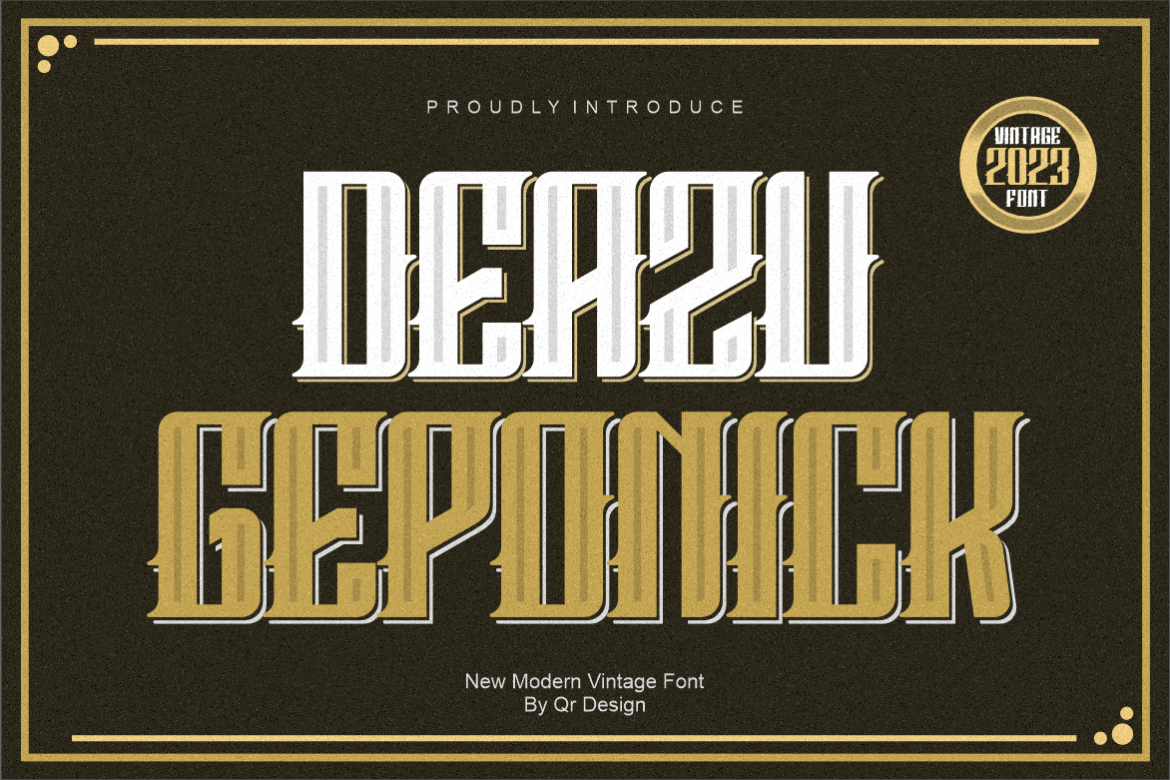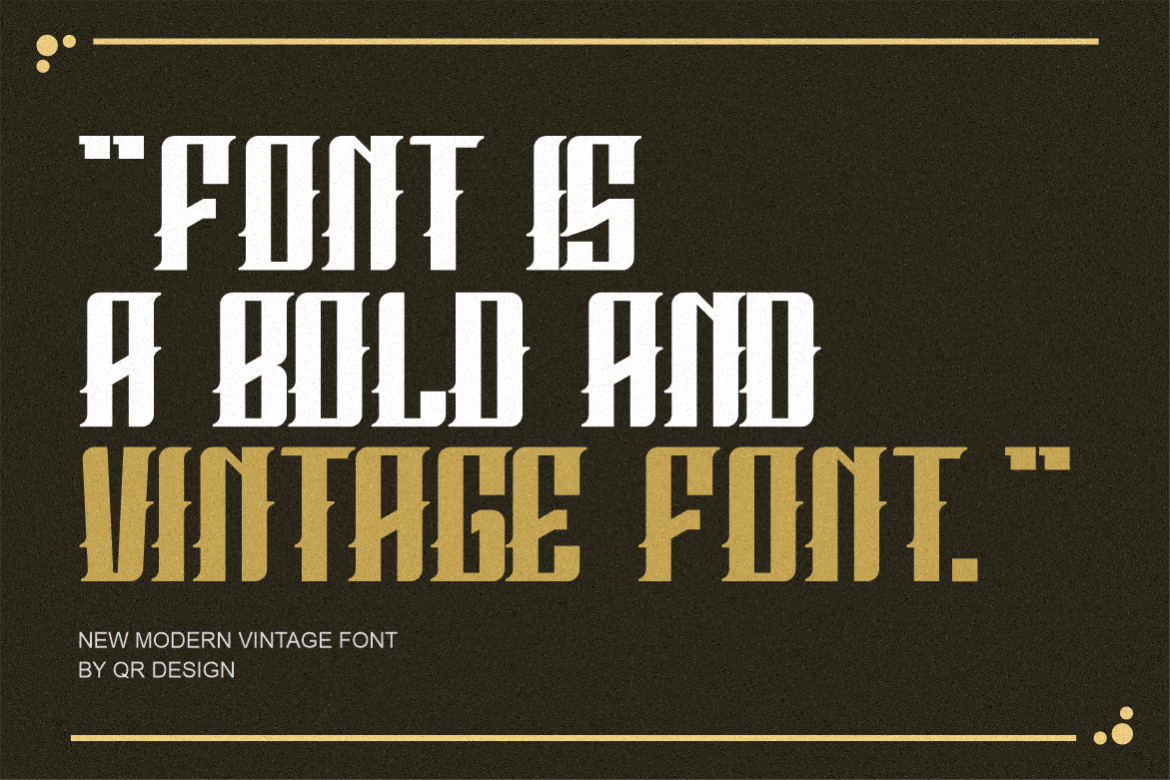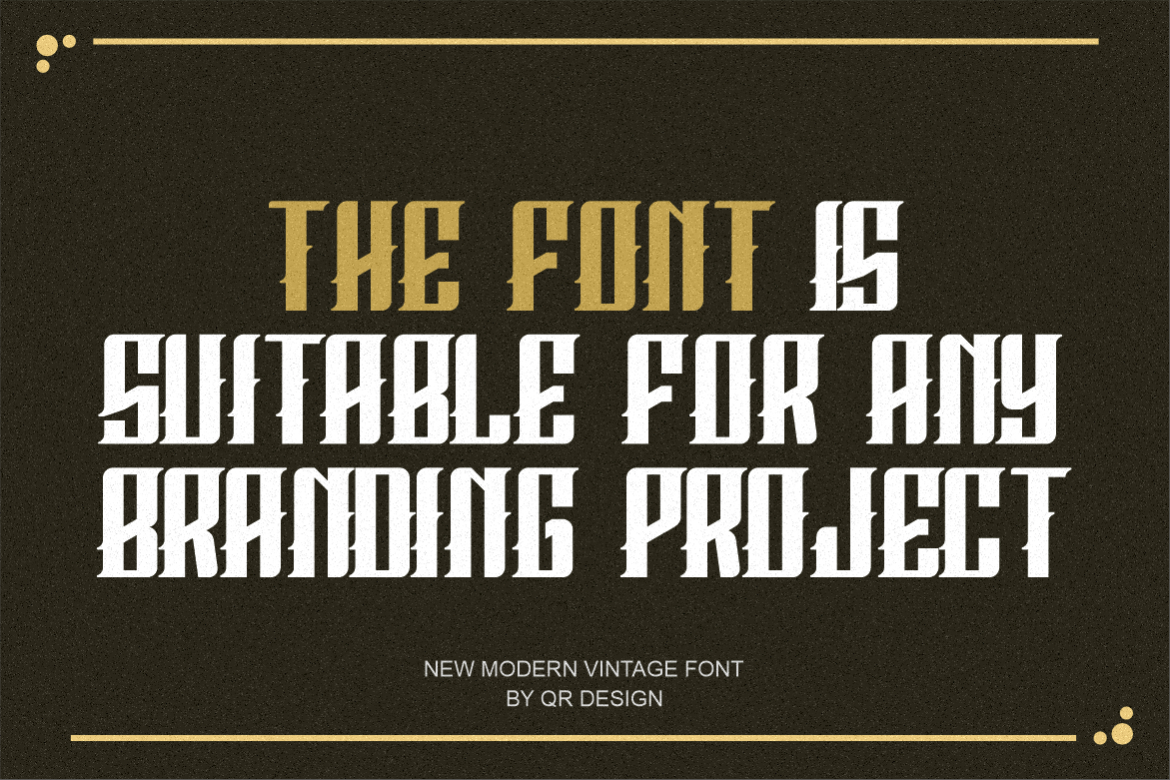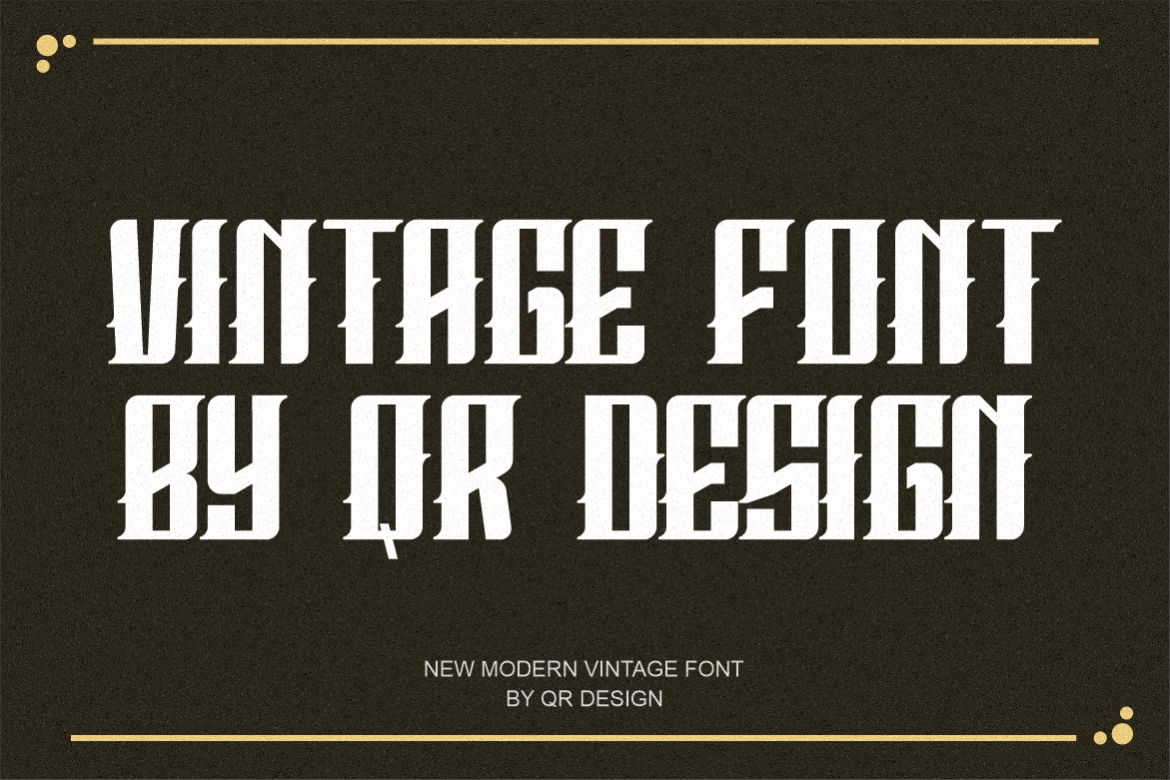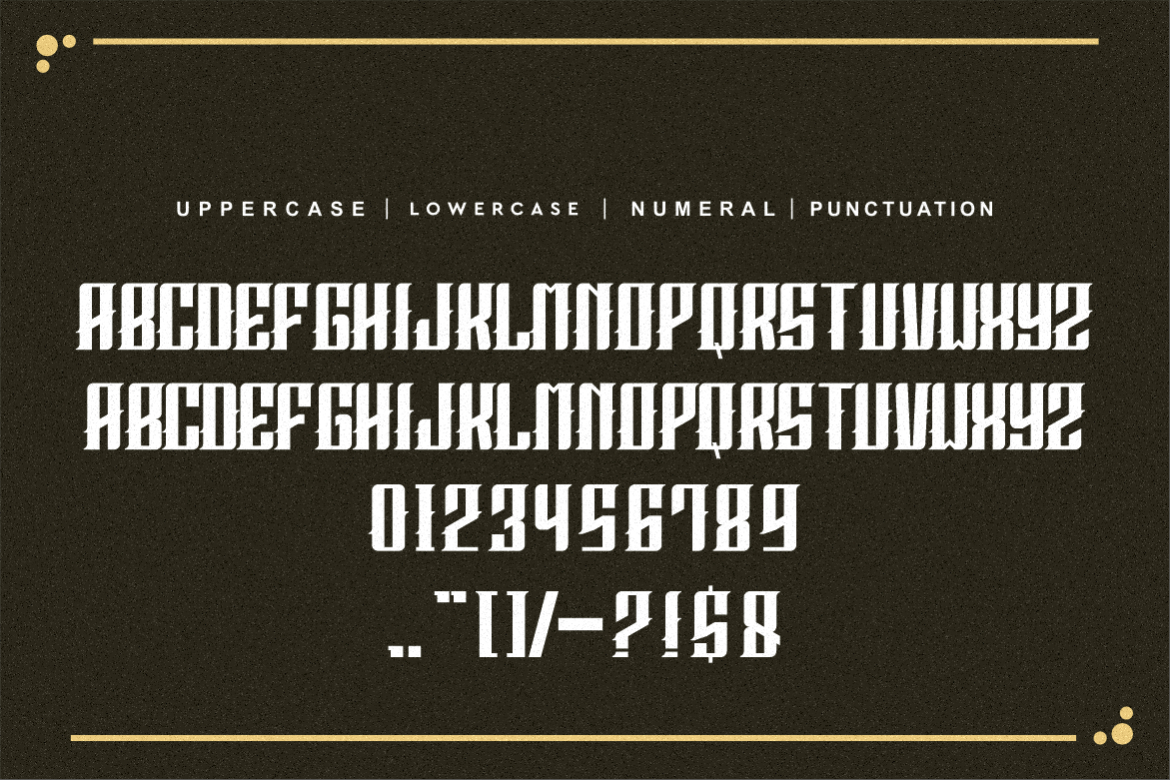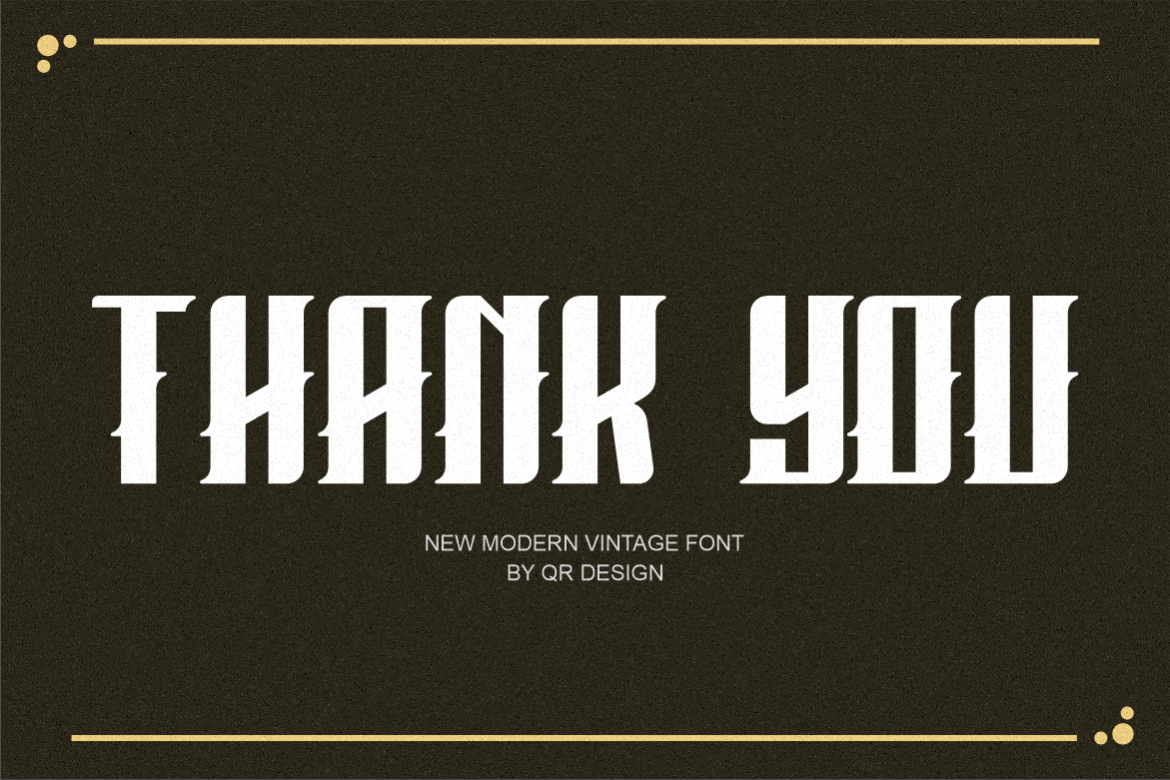
Deazu Geponick Font
About Deazu Geponick Font
Deazu Geponick is a bold and authentic all-caps blackletter font.
The font is suitable for any branding project like logo, t-shirt printing, e-sport, and many more. It will look outstanding in a wide range of contexts.